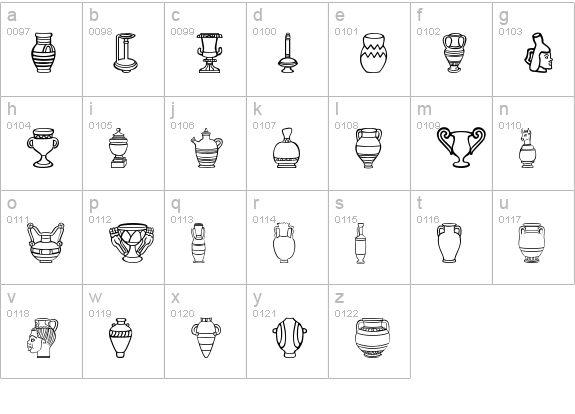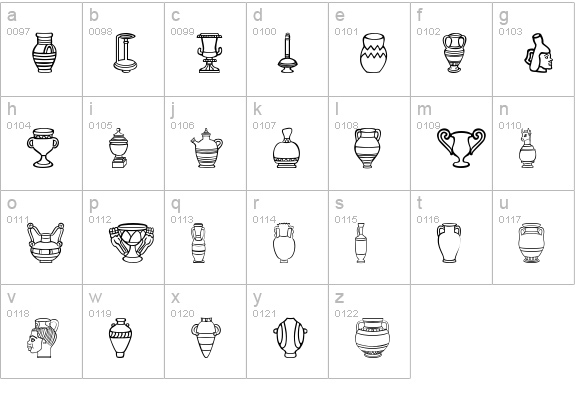
Pretty Pottery Font Details
Introducing the enchanting Pretty Pottery font, a whimsical and charming typeface that exudes elegance and creativity. With its delicate strokes and unique design, Pretty Pottery is perfect for adding a touch of sophistication to your projects. This beautiful font captures the essence of handmade pottery, bringing a sense of warmth and authenticity to your designs. The best part? Pretty Pottery font is completely free to download at FontsMarket.com! Whether you're creating invitations, branding materials, or any other creative project, this versatile font is sure to bring a touch of magic to your work. Don't miss out on the opportunity to add this stunning typeface to your collection today. Download Pretty Pottery font now and let your creativity shine!